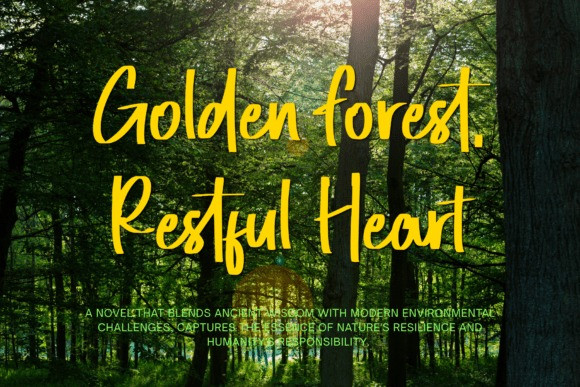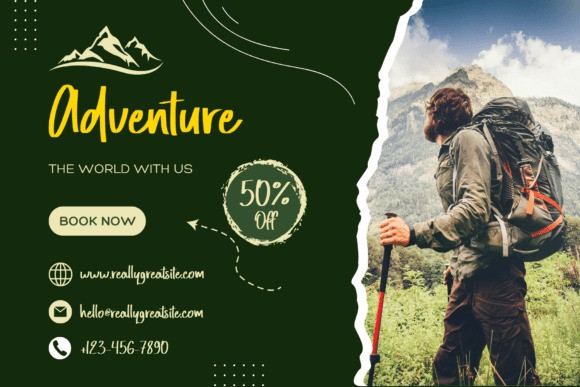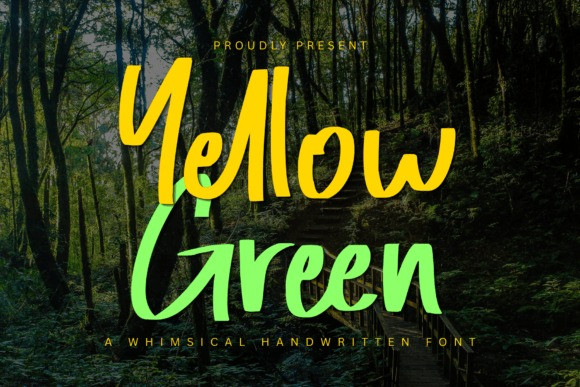
Yellow Green Font
Yellow Green Font is a natural handwritten brush font with a fresh and organic style. Inspired by the beauty of forests and nature, this font features smooth brush strokes, unique ligatures, and a handcrafted feel that makes every design look warm and authentic.
Perfect for logos, branding, packaging, quotes, invitations, posters, social media, and nature-themed projects.